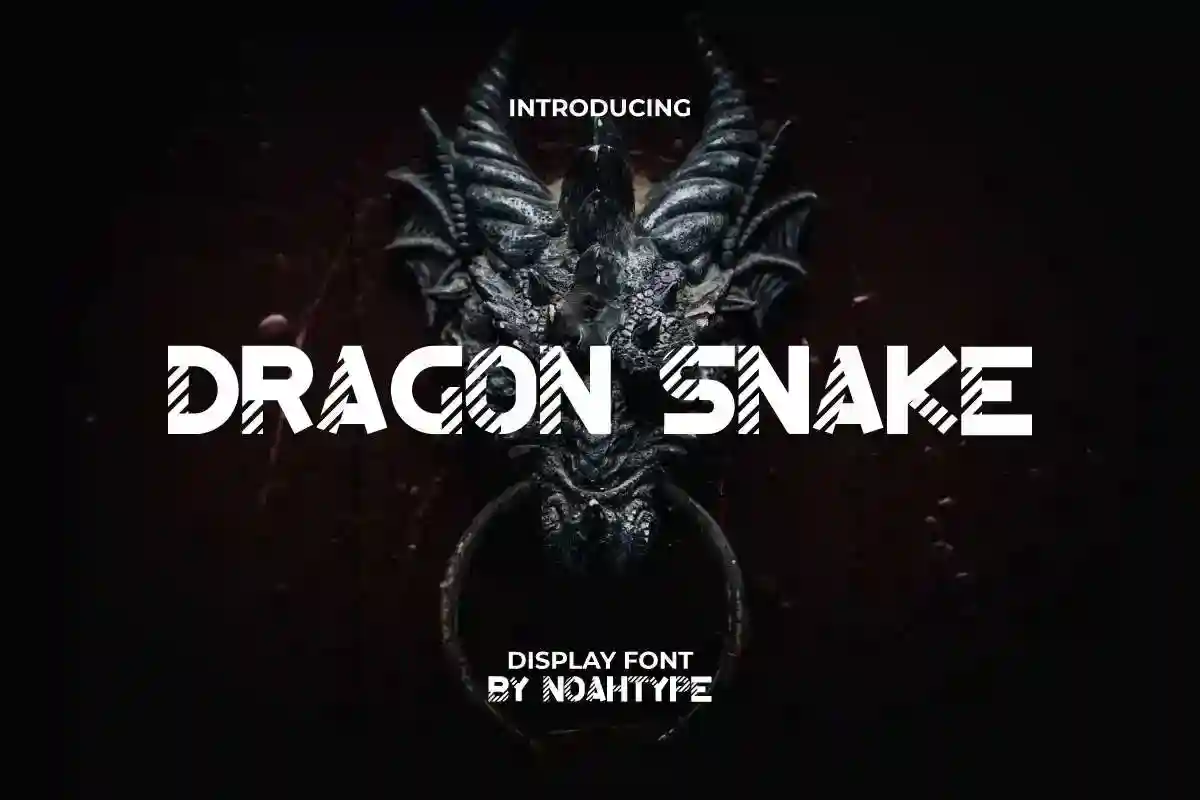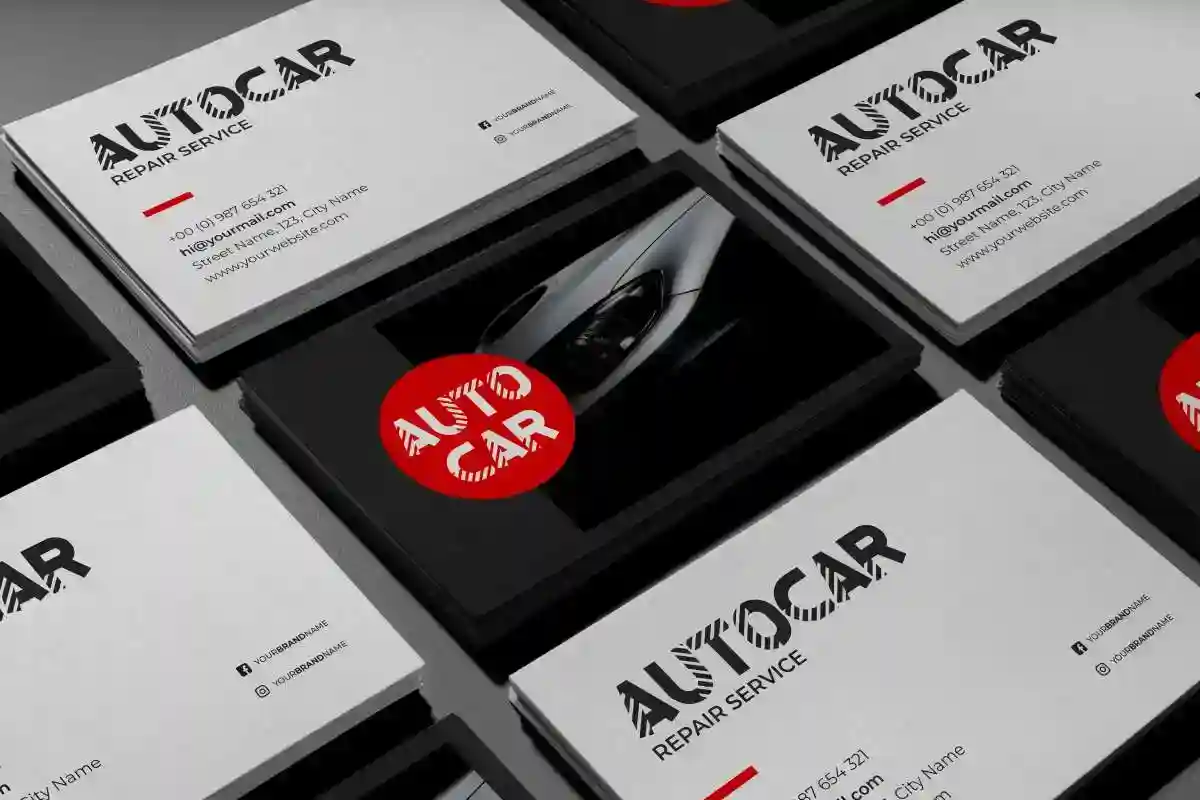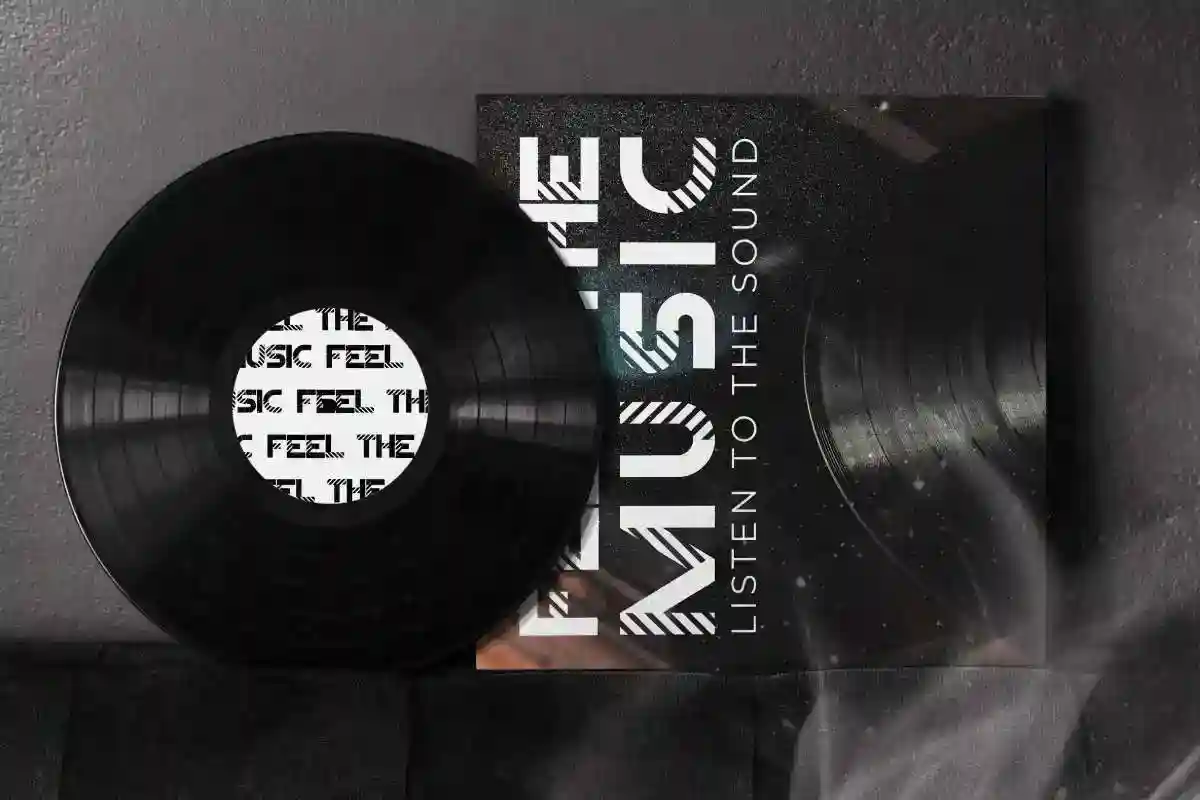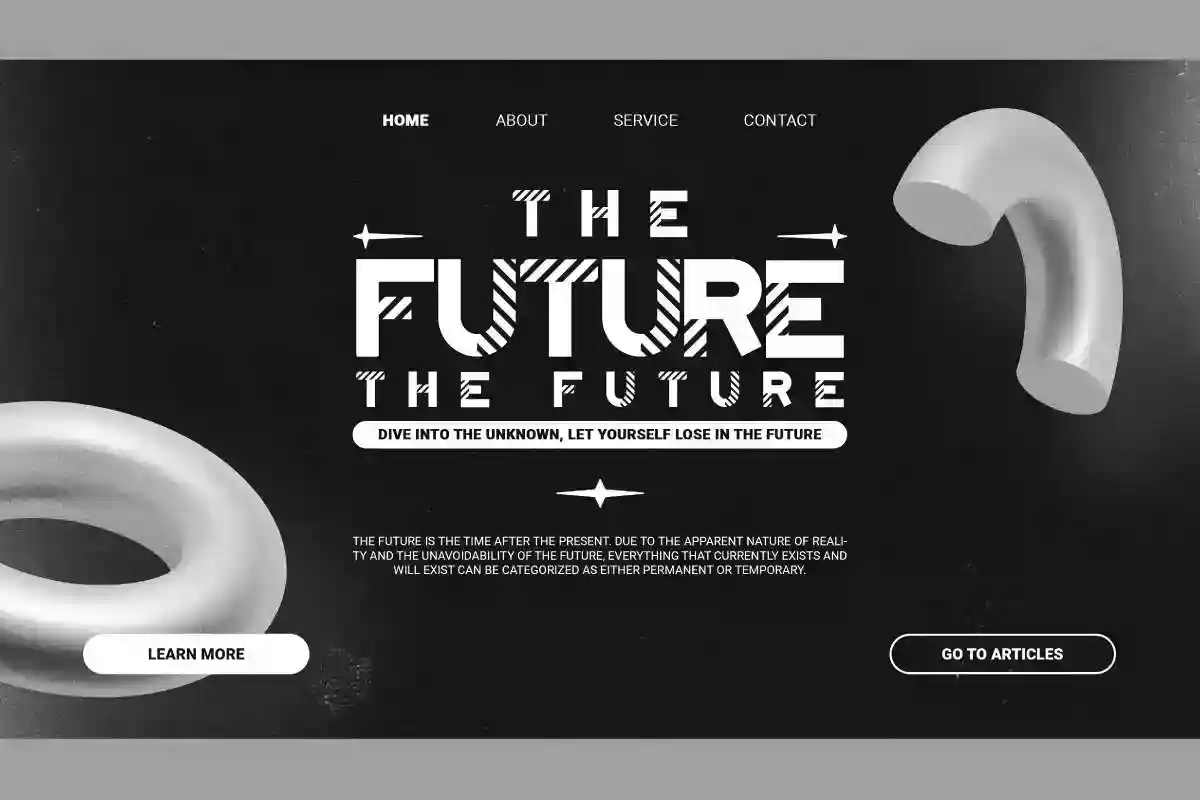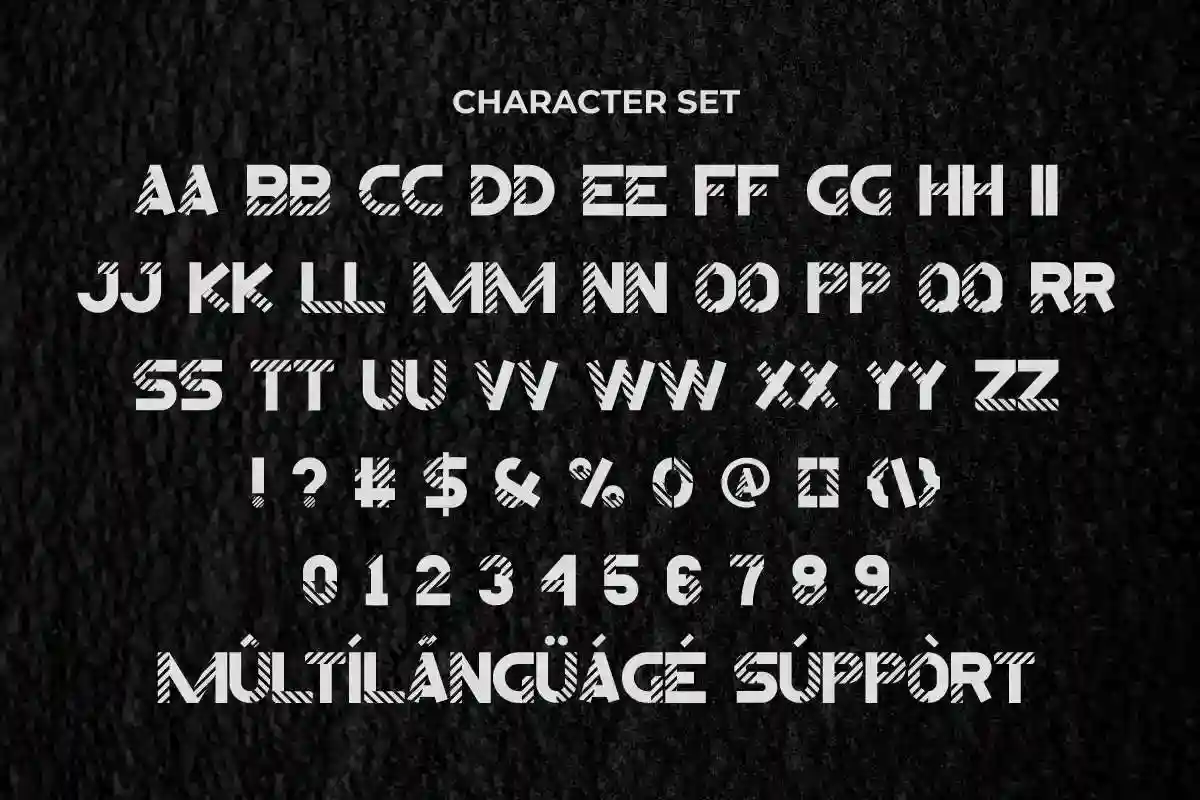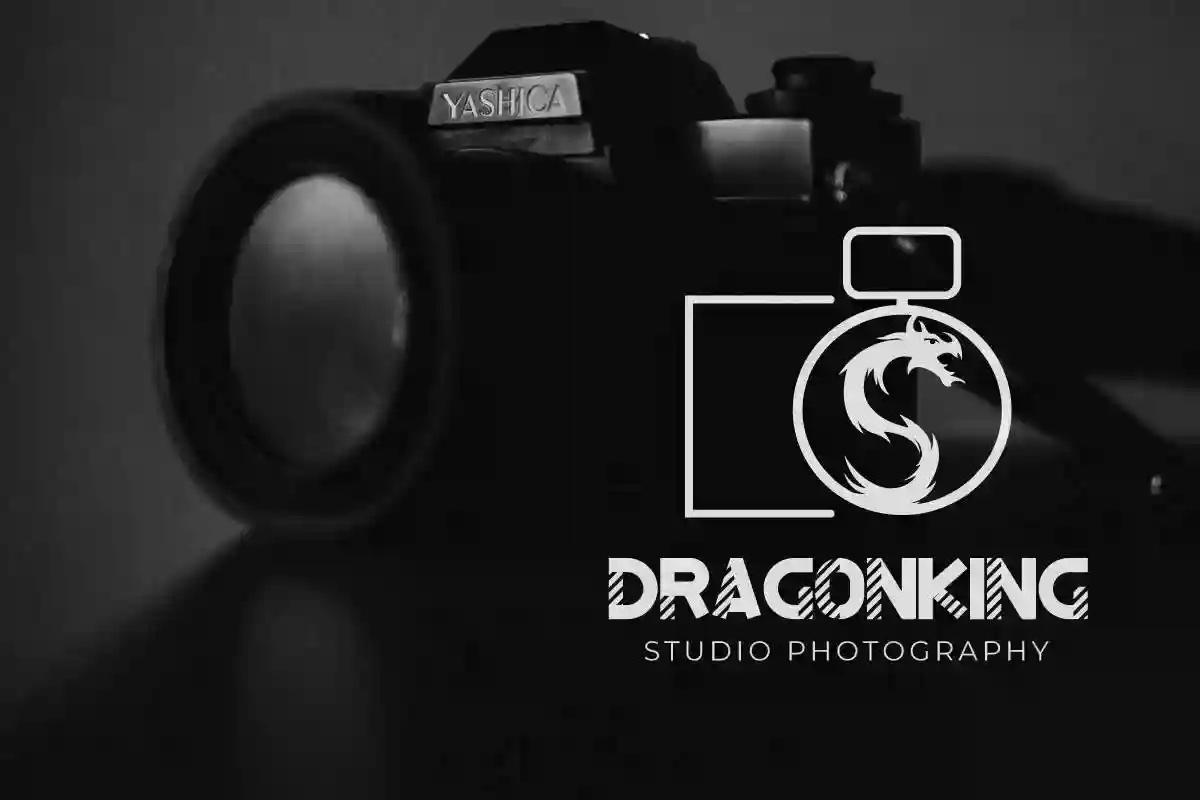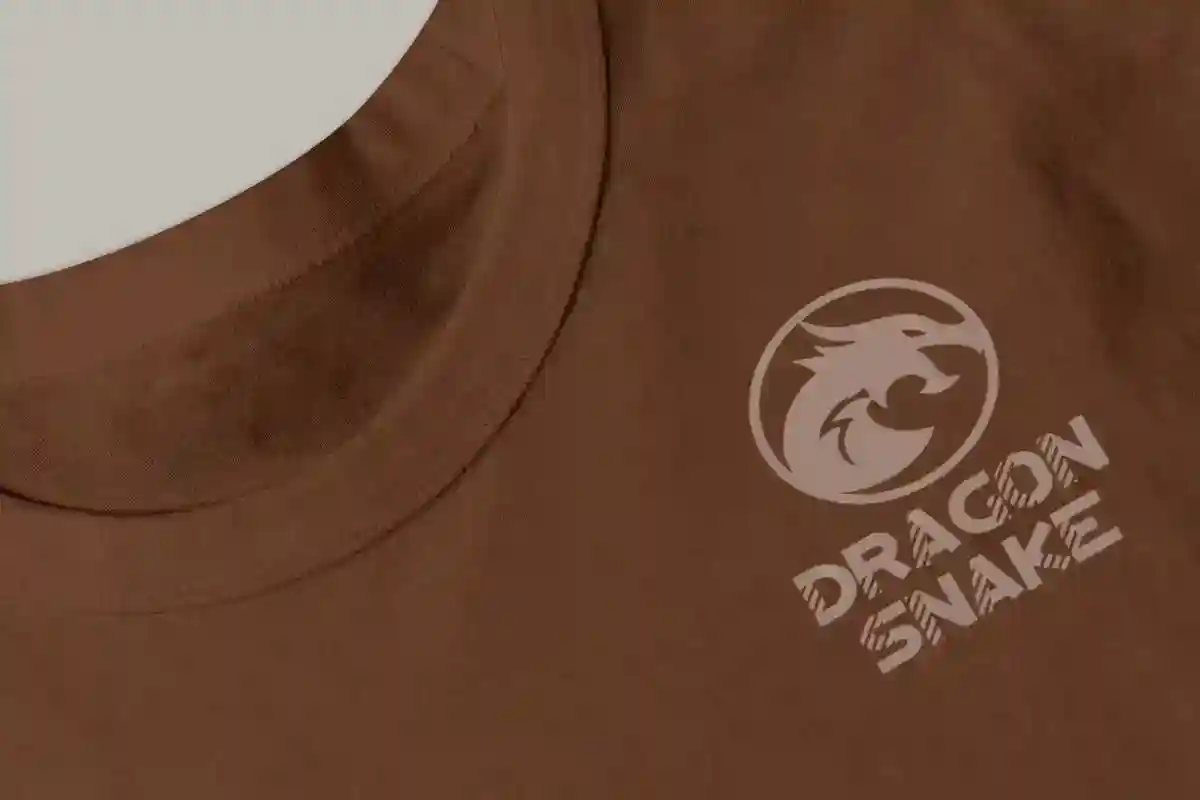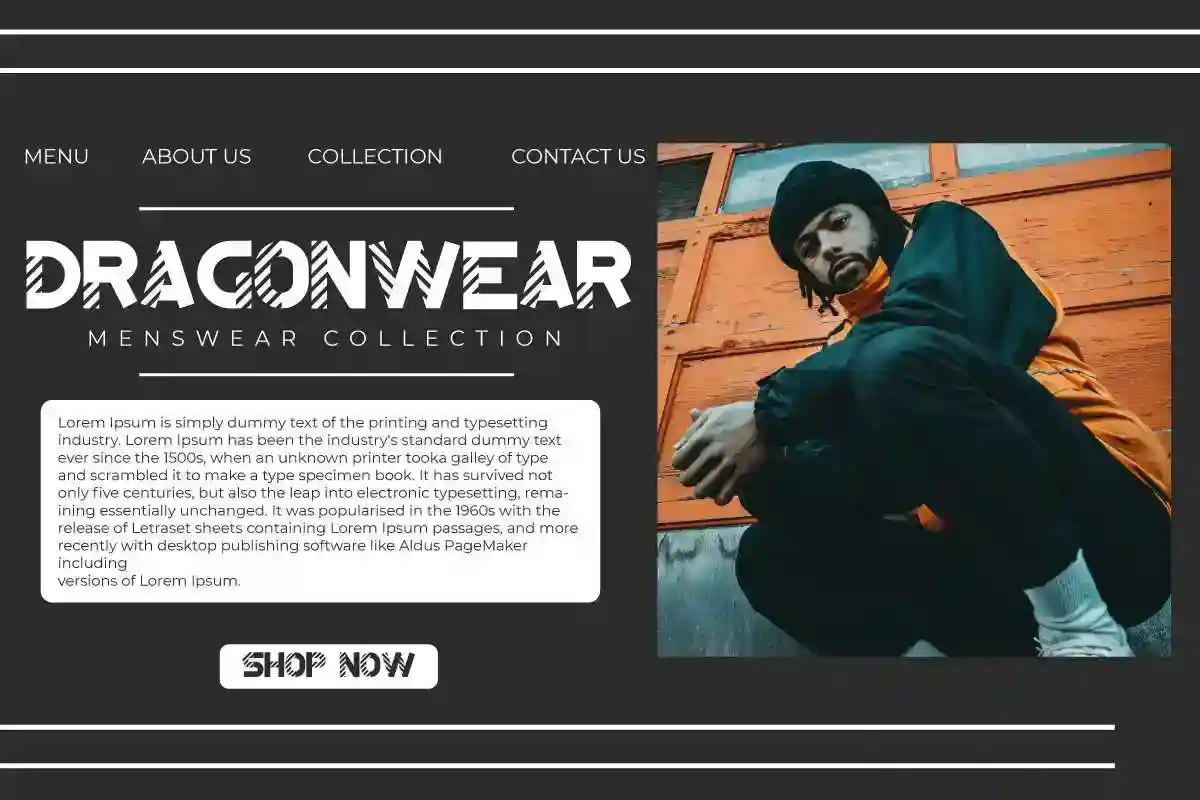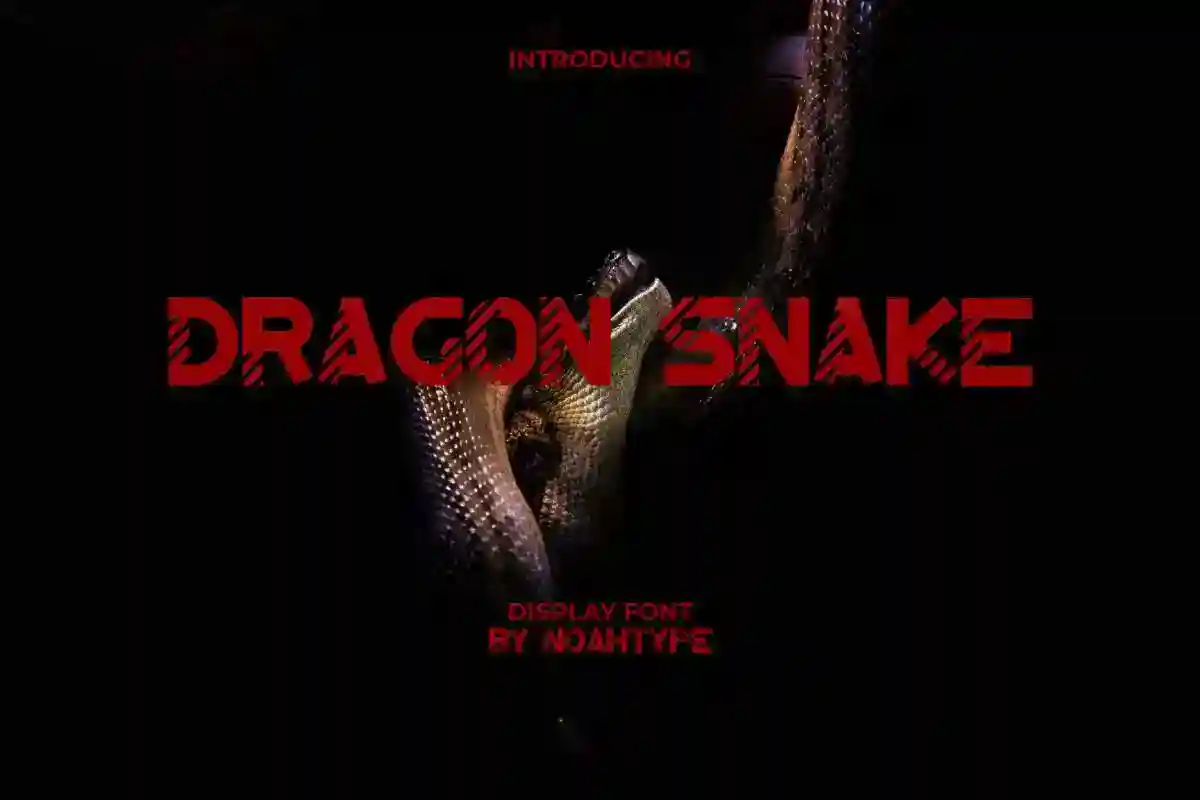
Dragon Snake is a modern display font with unique decoration created by NoahType. This typeface that is easy to read and has a characteristic striped line in each letters. It will be perfect for industry: automotive, fashion, photography, musician, racing, sports, and more.
Dragon Snake Font comes with a complete set of All Capital Basic Characters, Numeral and Punctuation. It will be amazing for any project: blog headers, business card, magazine, packaging design, printed t-shirts, sportswear.
Introducing Dragon Snake Display Font, a unique and fierce typeface designed to ignite your wildest creative ideas. Inspired by mythical creatures and ancient legends, this fantasy display font blends sharp curves and bold lines to create a visual roar on any project. Whether you’re designing for games, comics, book covers, logos, or posters, Dragon Snake brings a powerful presence that demands attention.
Crafted with a high-impact, modern gothic aesthetic, Dragon Snake Display Font is perfect for creatives who crave bold, unforgettable lettering. Its dramatic strokes and edgy structure make it a top choice for branding that dares to be different.